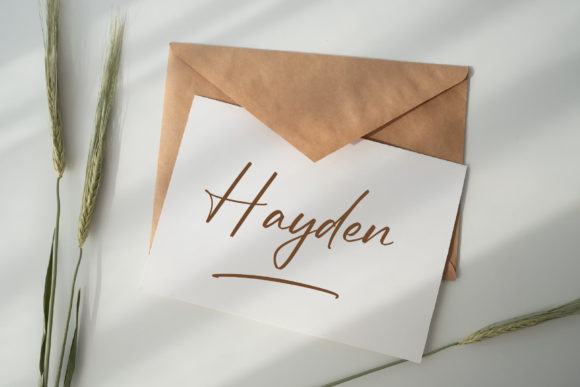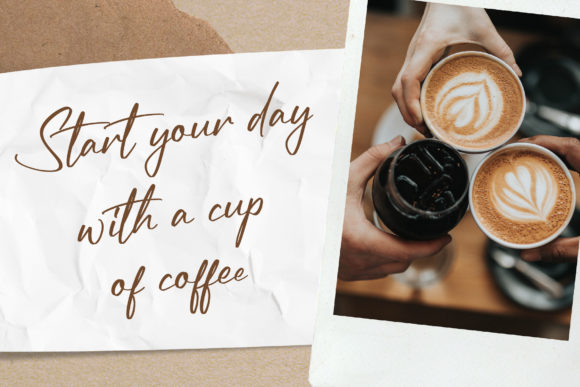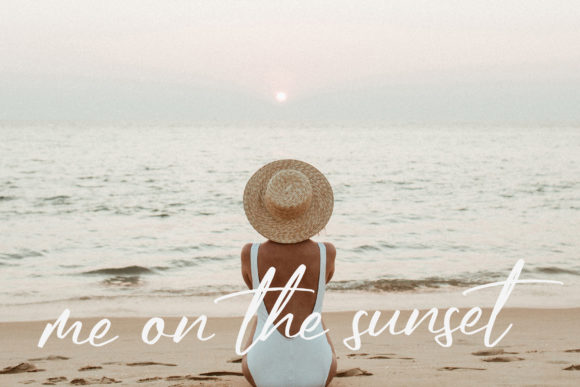
Introduction to Reymonde Signature Font
You know that moment when you’re working on a creative project and you just can’t find the perfect font to bring your vision to life? It’s like searching for a needle in a haystack, until suddenly you stumble upon that one special font that makes everything click into place. For designers, that moment is pure magic. And if you’re looking for a font that will add a touch of luxury to your next design project, we’ve got just the thing: the Reymonde Signature Font.
This beautiful calligraphy typeface is a true showstopper, with characters that dance along the baseline in a way that’s both elegant and playful. Whether you’re creating a wedding invitation, a brand logo, or a beautifully designed card, the Reymonde Signature Font is sure to add a high-quality, professional touch to your work. And the best part? It’s available for free download, making it a valuable resource for designers on a budget.
Key Features of Reymonde Signature Font
- High-quality, professional design ideal for creative projects and personal branding.
- Features a unique, modern script style with elegant flourishes, perfect for adding a touch of sophistication to designs.
Honest Review: Reymonde Signature Font
I recently stumbled upon the Reymonde Signature Font, and I must say it’s a great addition to any design resource library. This font is perfect for creative projects that require a touch of elegance and sophistication.
- The high-quality design of the font is immediately noticeable. The curves and lines are smooth and well-executed.
- The transparent background makes it easy to use on any background, which is a huge plus for designers.
- The font is highly versatile and can be used for a variety of projects, from logos to invitations.
- The font is not as extensive as some other fonts on the market, with a limited number of weights and styles.
Overall, the Reymonde Signature Font is a great choice for designers looking for a high-quality, elegant font to add to their design resource library. While it may have some limitations, its versatility and smooth design make it a valuable addition to any creative project.
The Reymonde Signature Font is ideal for use in creative projects, such as logo design, social media graphics, and branding materials. It’s also great for use in presentations and documents where a high-quality font is needed.